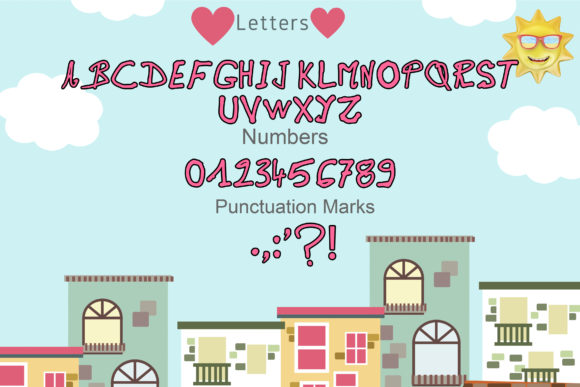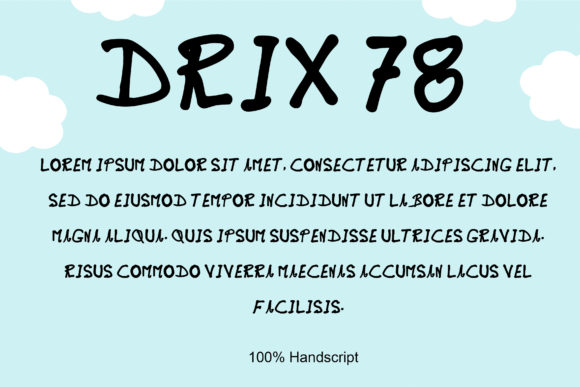
Drix 78 Font
About Drix 78 Font
Drix 78 is a loosey handwriting font with all caps style, casual handwritten font. This font would be perfect for writing out uplifting quotes for social media posts, wall art, or greeting cards. It will also be there for you if you need to design some charming packaging or branding. Suitable for short and sweet quotes, as well as longer meaningful paragraphs.